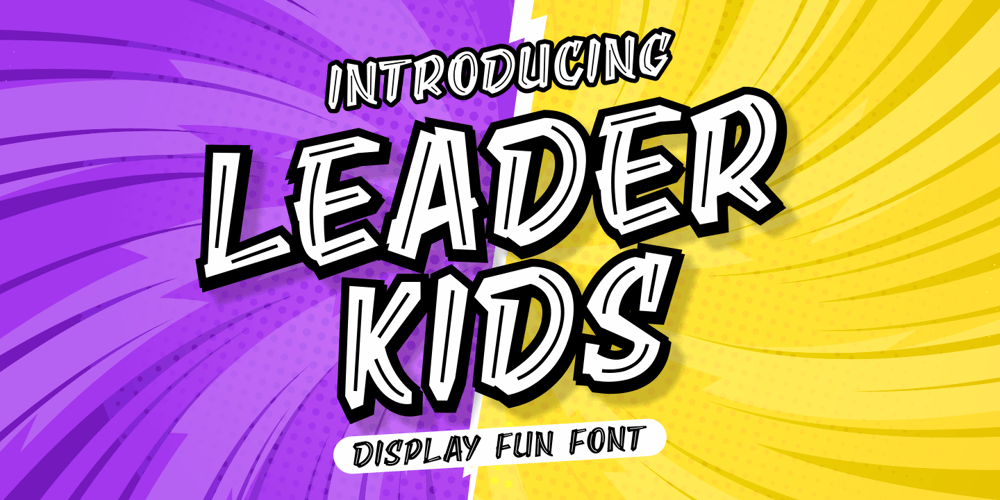
Leader Kids Font Family was designed by Riyadh Abuhafs and published by Awan Senja. Leader Kids contains 1 styles and family package options. Leader Kids is a fun and unique display font. It will elevate a wide range of design projects to the highest level, be it branding, headings, wedding designs, invitations, signatures, logos, labels, and much more!